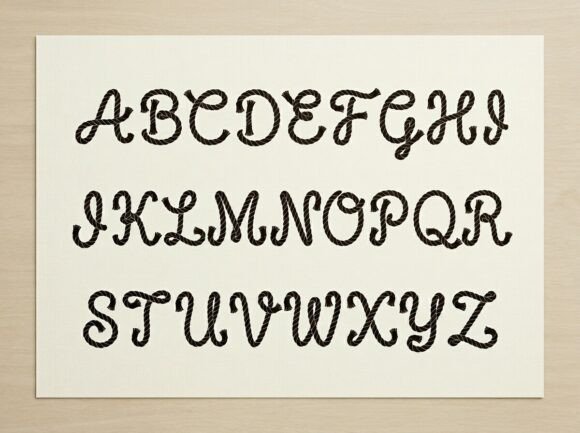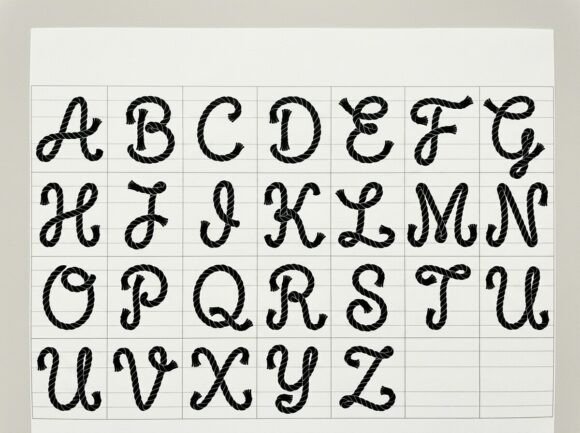
Introducing Devan Font: A Stunning Decorative Display Font
Are you tired of using the same old fonts for your designs? Look no further than Devan Font, a unique and artistic display font that’s sure to turn heads. With its strong visual personality and decorative elements, this font is perfect for creators who want to add a touch of elegance and sophistication to their work.
What Makes Devan Font Special?
Devan Font is a decorative display font designed to be the center of attention. Its unique artistic elements and strong visual personality make it perfect for bold headlines, artistic logos, and creative packaging. Whether you’re a designer, craftsperson, or DIY enthusiast, this font is sure to elevate your work to the next level.
Key Features of Devan Font
- Unique Artistic Elements: Devan Font features intricate and decorative elements that add a touch of elegance to any design.
- Strong Visual Personality: This font has a bold and eye-catching appearance that’s sure to grab attention.
- Versatile: Devan Font is perfect for a variety of design applications, including bold headlines, artistic logos, and creative packaging.
- Professional and Polished Finish: Despite its decorative nature, Devan Font maintains a professional and polished finish that’s suitable for high-end designs.
Before purchasing Devan Font, please note that it’s an ALL-CAPS (Uppercase Only) display typeface. This means it does not include lowercase letters. It’s specifically designed for high-impact headlines, logos, and decorative initials where every letter is a work of art.
Use Cases for Devan Font
Devan Font is perfect for a variety of design applications, including:
- Headlines and Titles: Use Devan Font to create bold and eye-catching headlines that grab attention.
- Logos and Branding: This font is perfect for creating unique and memorable logos that reflect your brand’s personality.
- Packaging and Product Design: Add a touch of elegance and sophistication to your product packaging with Devan Font.
- Artistic Projects: Whether you’re a craftsperson or DIY enthusiast, Devan Font is perfect for adding a decorative touch to your artistic projects.
Tips for Using Devan Font
To get the most out of Devan Font, here are a few tips:
- Use it sparingly: Due to its bold and decorative nature, Devan Font is best used sparingly to avoid overwhelming the reader.
- Pair it with a simple font: Pair Devan Font with a simple font to create visual contrast and make your design more readable.
- Experiment with colors and textures: Don’t be afraid to experiment with different colors and textures to add depth and interest to your design.